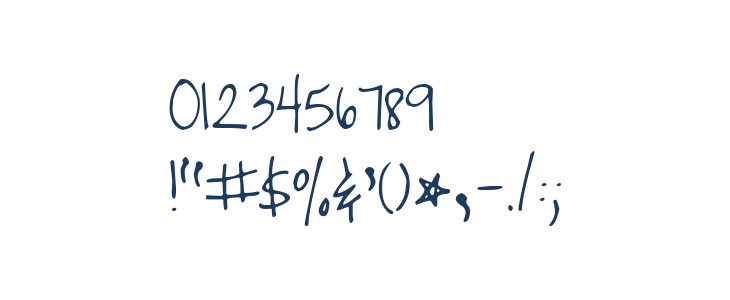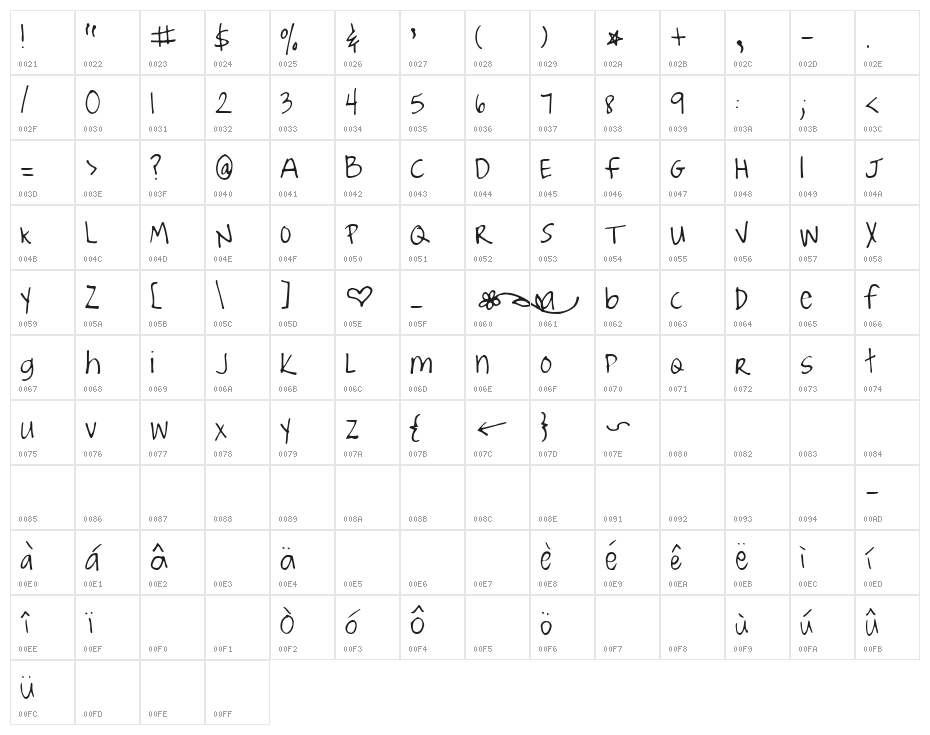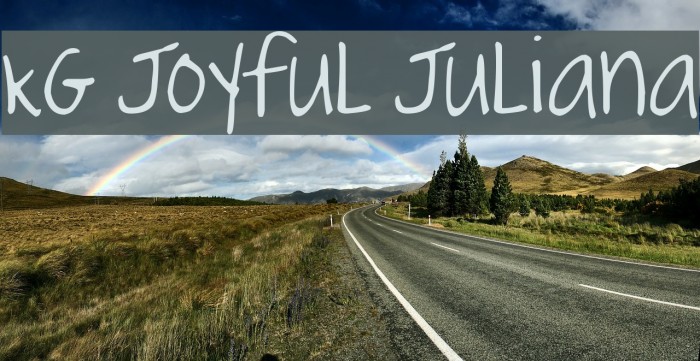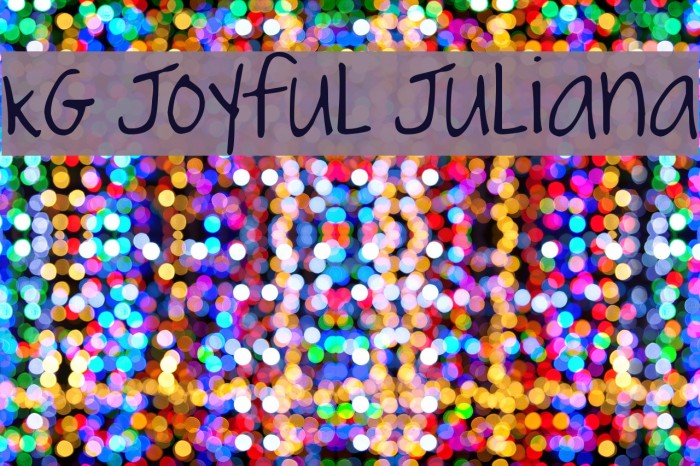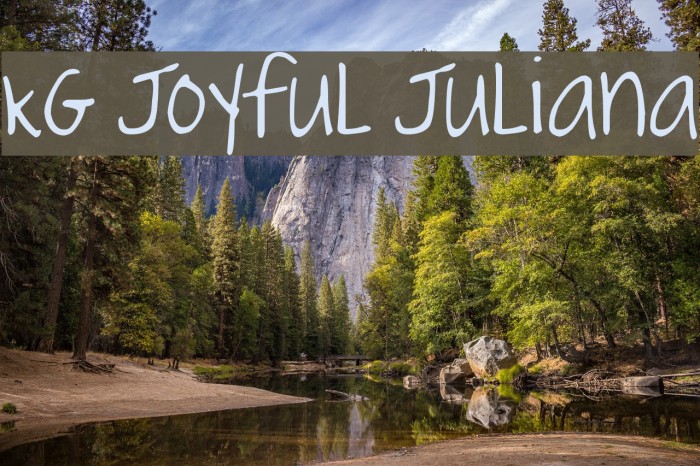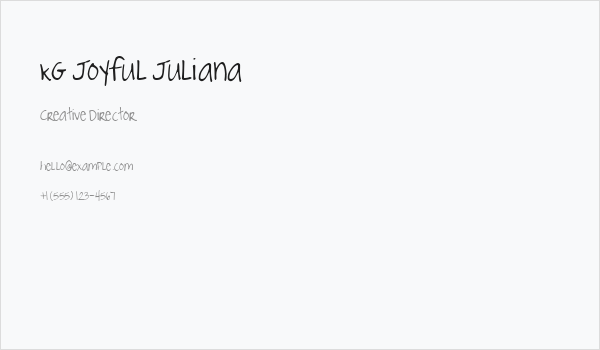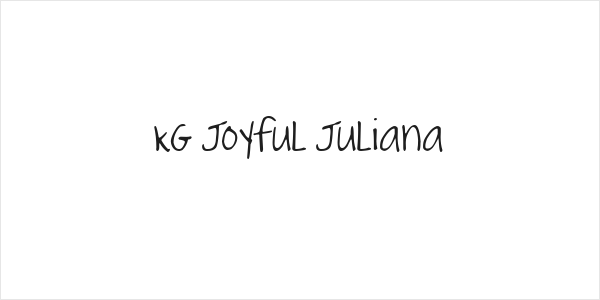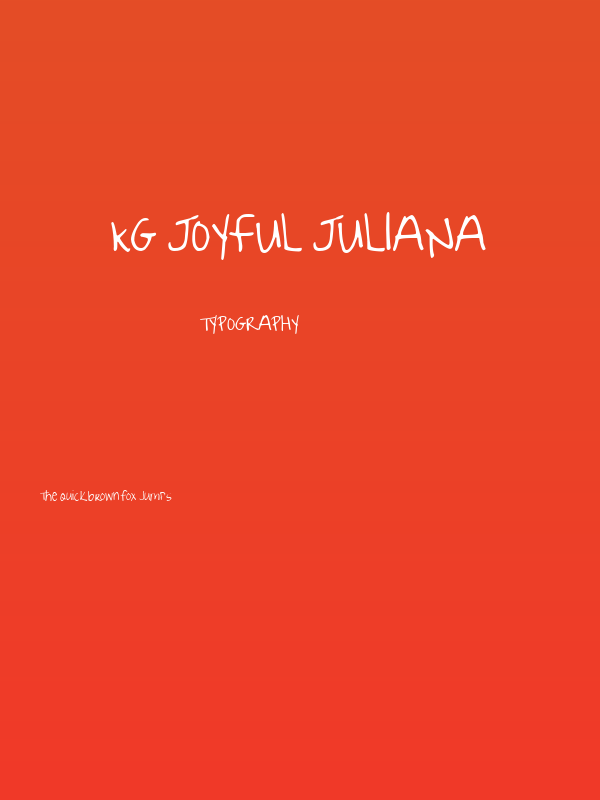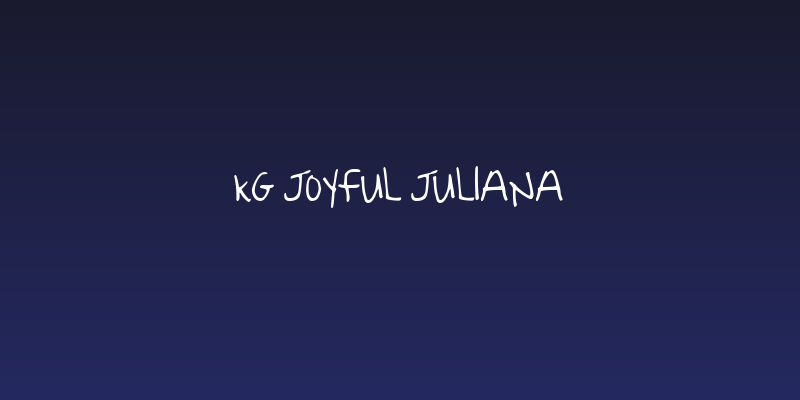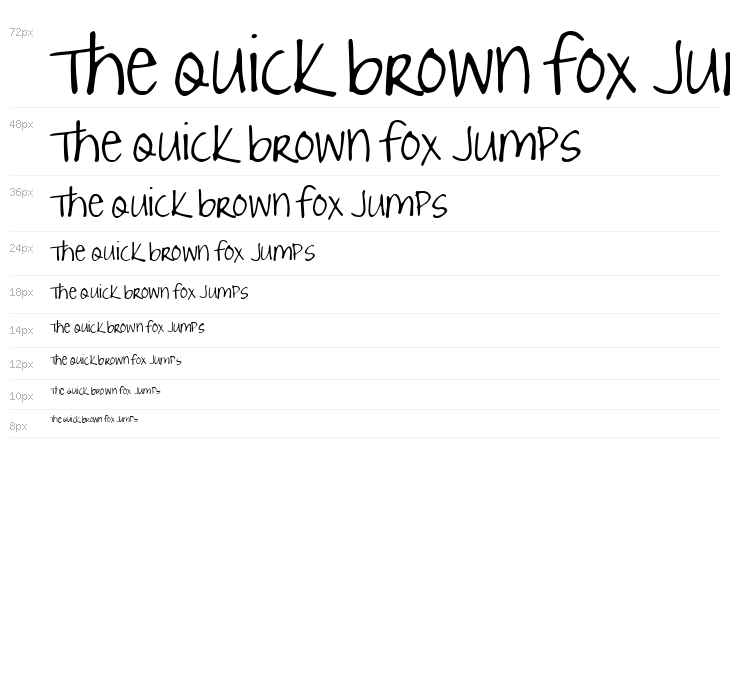
KG Joyful Juliana Font
KG Joyful Juliana Description
This playful and whimsical font exudes a sense of joy and creativity. The letters are hand-drawn with a casual, carefree style, featuring uneven strokes and a slightly irregular baseline that adds to its charm. The uppercase and lowercase characters maintain a consistent flow, while the numbers and special characters are crafted with the same lively spirit. The font's organic feel makes it perfect for projects that require a personal touch, such as children's books, greeting cards, or playful branding. Its unique character is sure to capture attention and convey a sense of fun.
| Proposed Projects | Ideal for children's books, greeting cards, playful branding, and creative projects. |